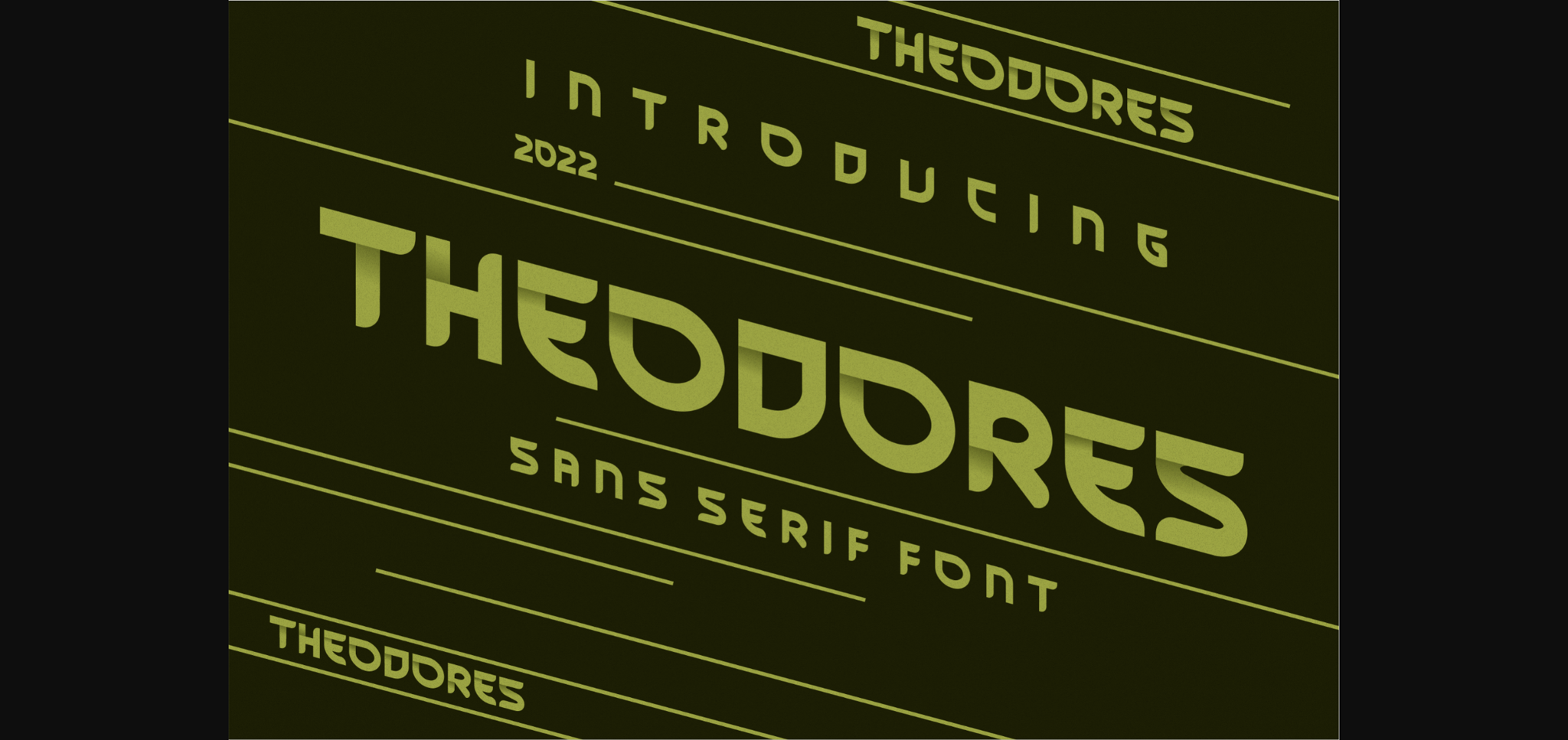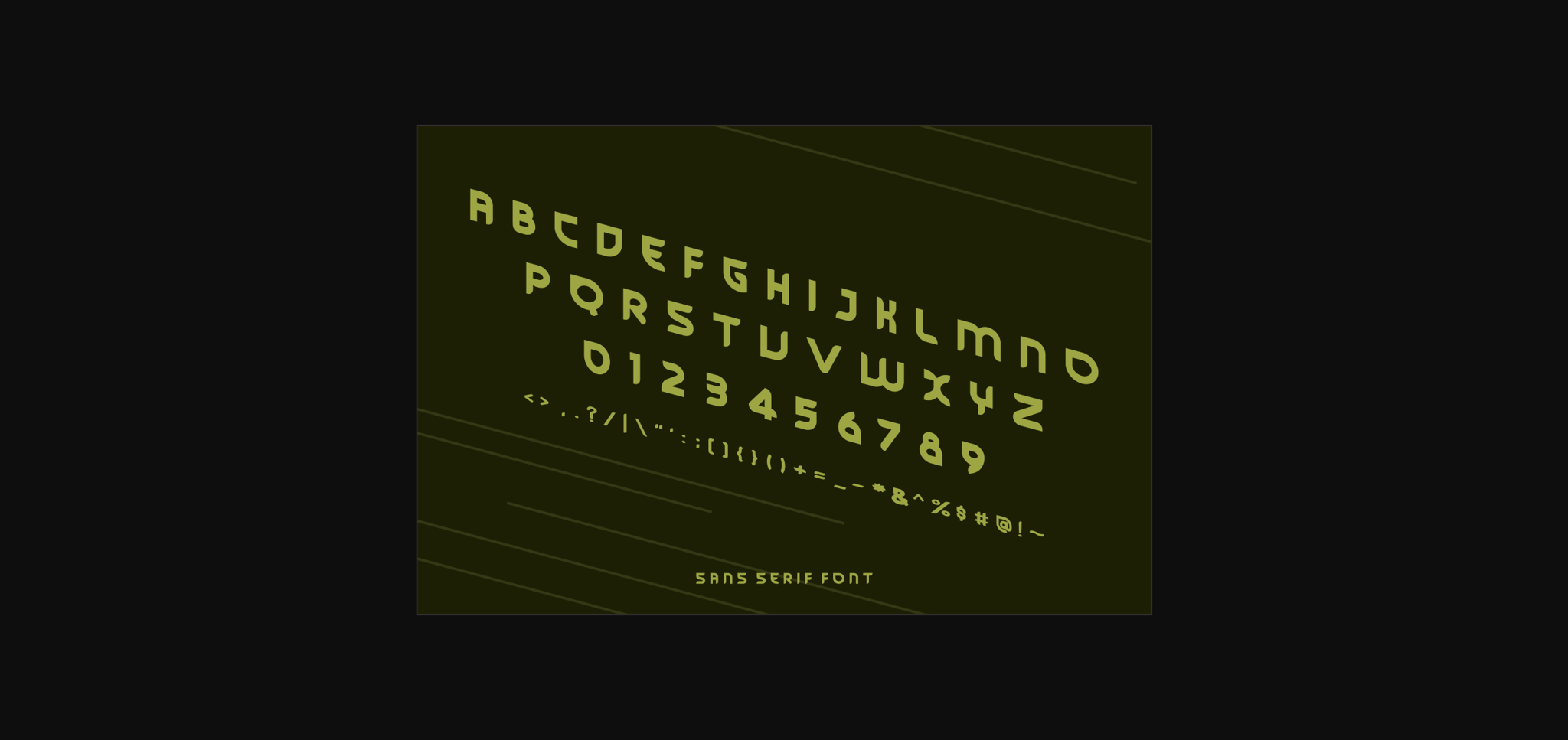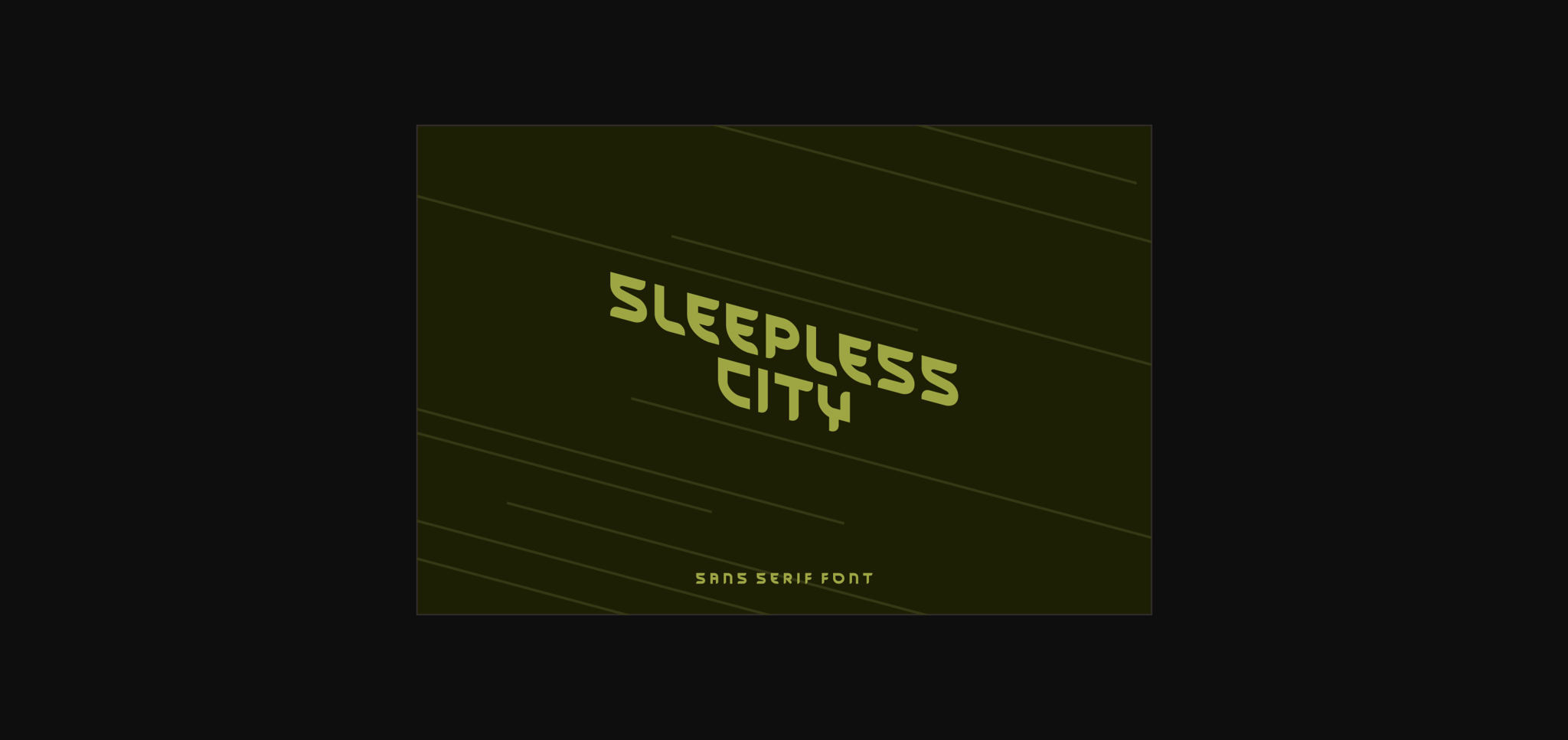
About Theodores Font
Theodores is a modern and cool sans-serif display font. Its clean lines and contemporary design make it ideal for headlines, posters, and branding projects. With its sleek and stylish appearance, Theodores brings a sense of sophistication and professionalism to any creative endeavor.